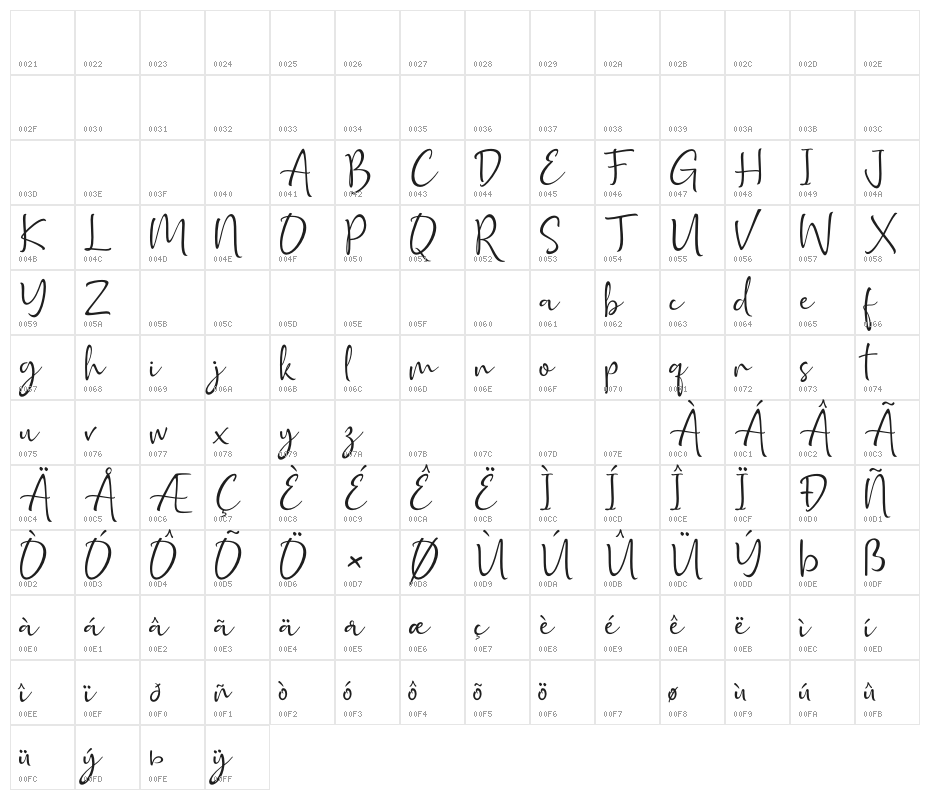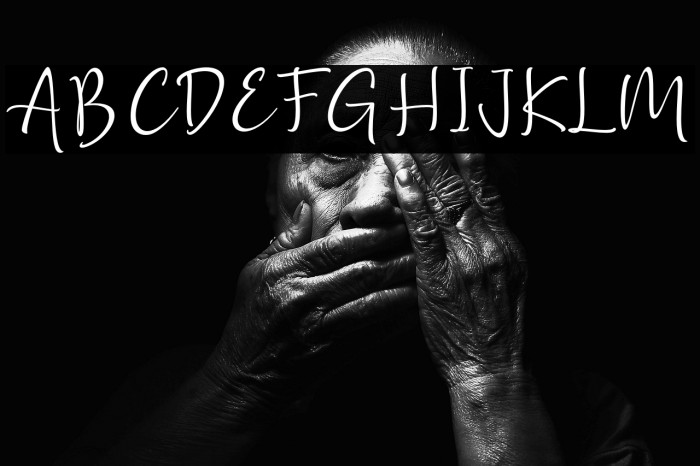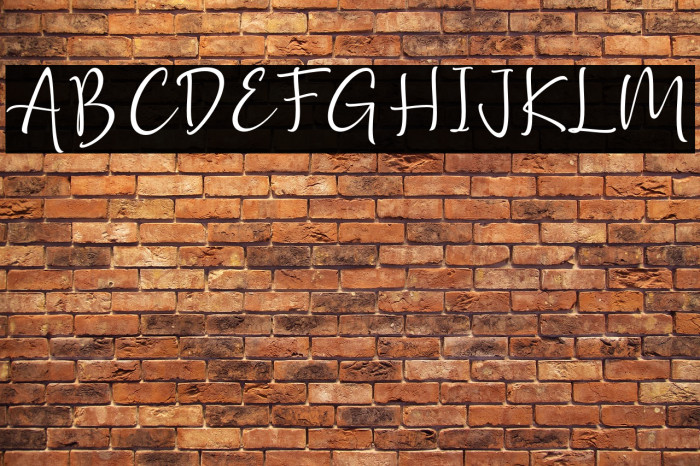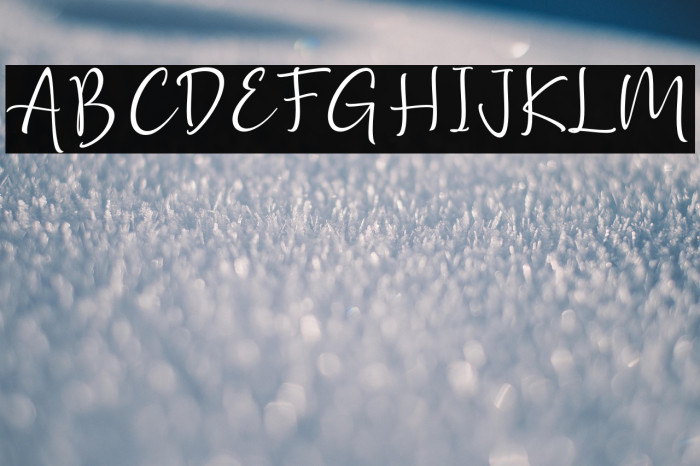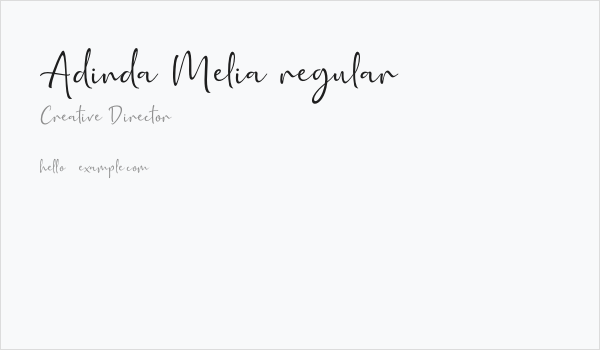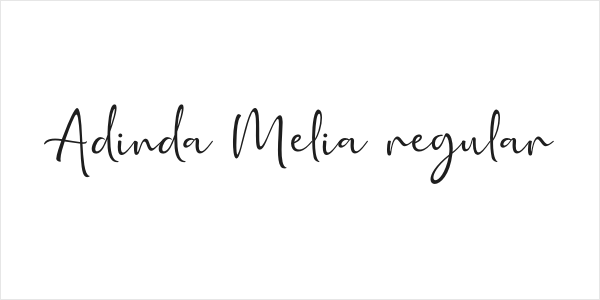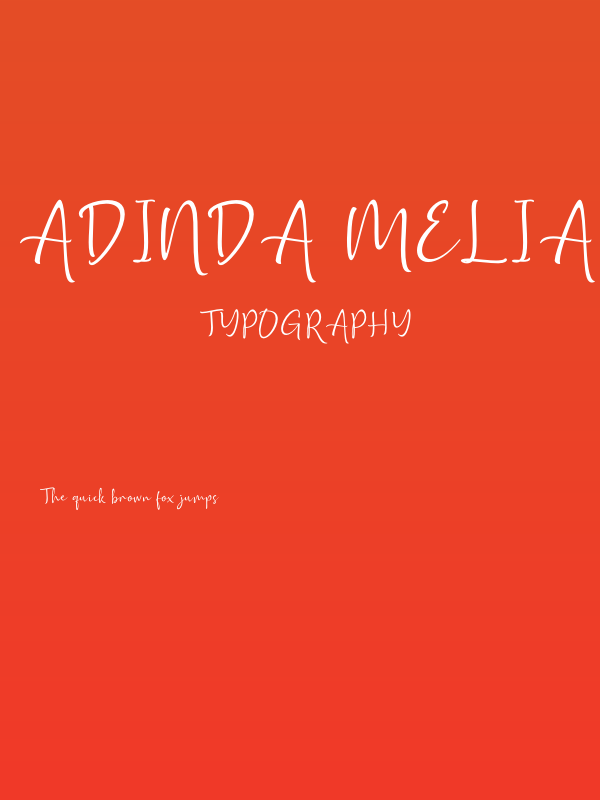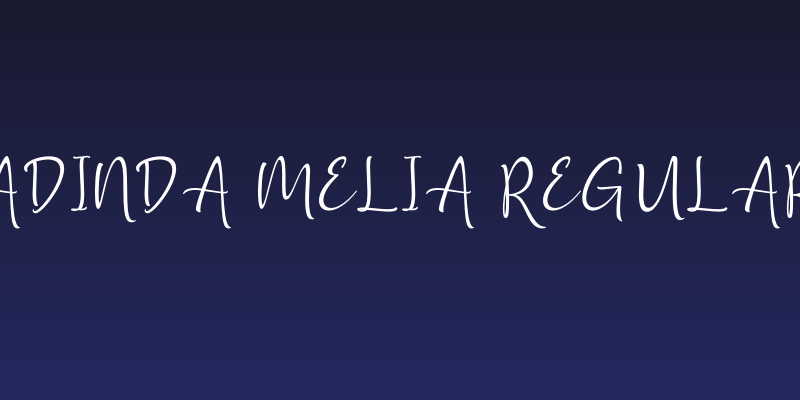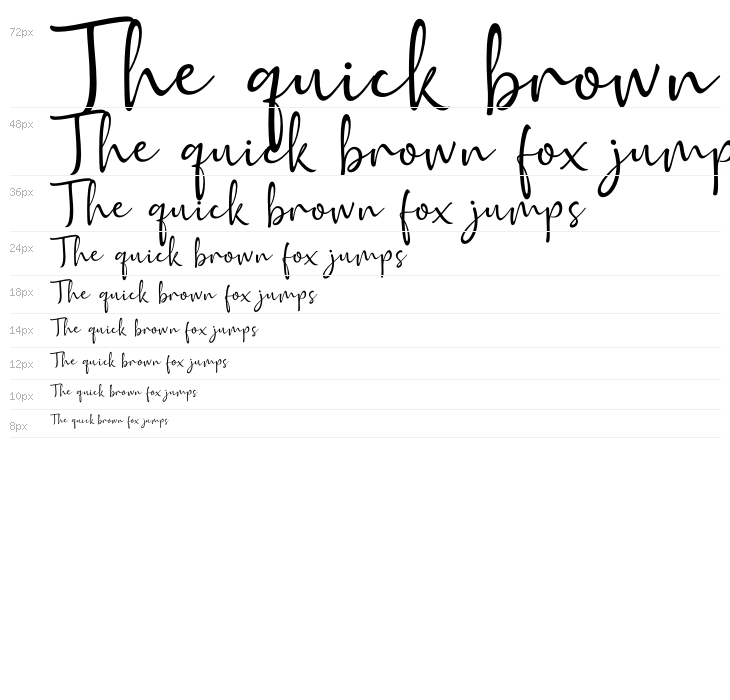
Adinda Melia regular Font
Adinda Melia regular Description
This font features a lively and expressive handwritten style, characterized by fluid and dynamic strokes that convey a sense of elegance and spontaneity. The uppercase letters are slightly more structured, maintaining a consistent height with subtle variations in width, while the lowercase letters exhibit a more playful and freeform appearance. The overall design is reminiscent of casual script handwriting, with a natural flow and slight slant that adds to its charm. The numerals and special characters are crafted with the same attention to detail, ensuring a cohesive look across all elements. This font is perfect for projects that require a personal touch, such as invitations, greeting cards, or branding materials.
| Overall Style | Casual, Elegant |
| Proposed Projects | Ideal for invitations, greeting cards, branding, and personal projects. |